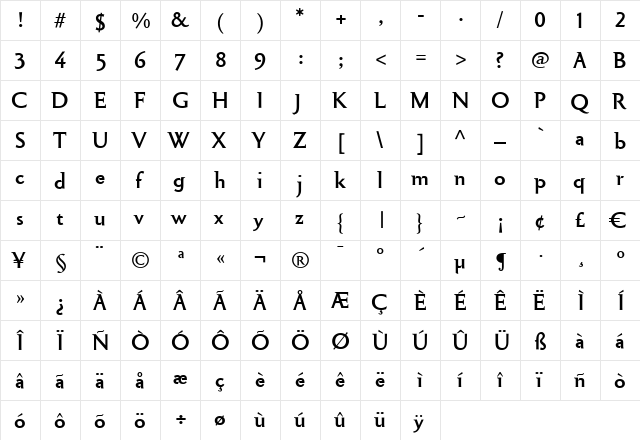
Cimiez Demi Serif Bold
Design Context for Cimiez Demi Serif Typeface
Cimiez Demi Serif brings classic typographic sensibility to the table — its serifs and measured letterforms reflect centuries of print heritage. Its bold stroke weight gives it real presence on the page.
Pro Tip: Set Cimiez Demi Serif with slightly loose tracking in headlines to let each letterform's detail read clearly at display sizes.